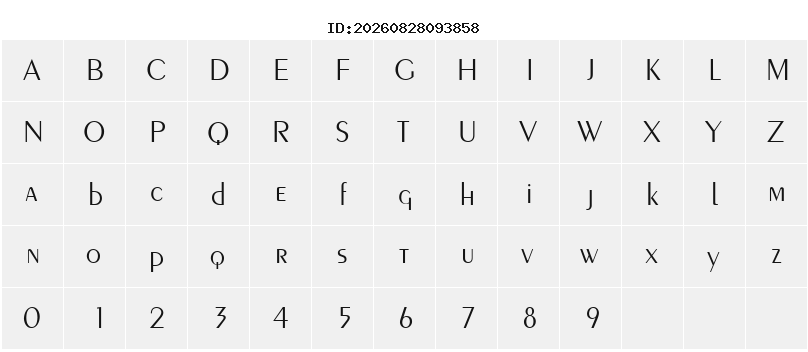
• Font Name: TrSah Penguin Light
• Font Style: Plain
• Full Font Name: TrSah Penguin Light Plain
About TrSah Penguin Light.ttf
TrSah Penguin Light.ttf is a modern, elegant sans-serif font designed for ultimate readability and visual harmony. Perfect for branding, headlines, web design, and print materials.